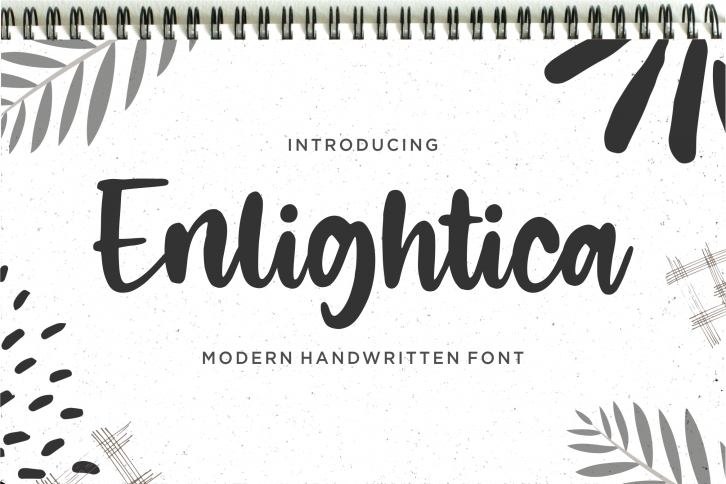
Enlightica is a beautiful and refined script font. It has a classy, elegant and modern look that can be used for logos, branding, invitations, stationery, wedding designs, social media posts, and much more!